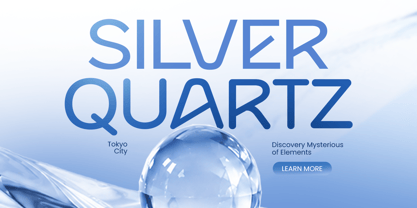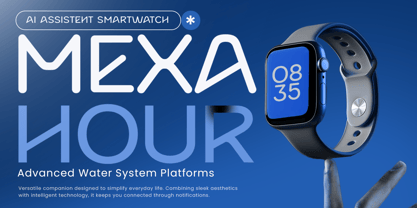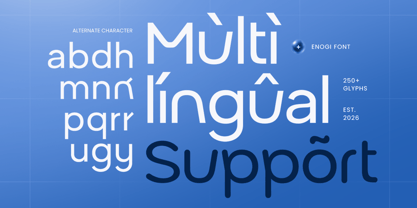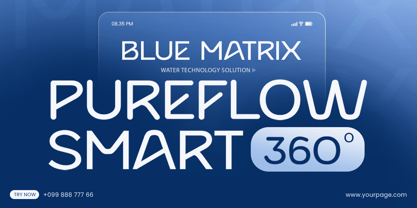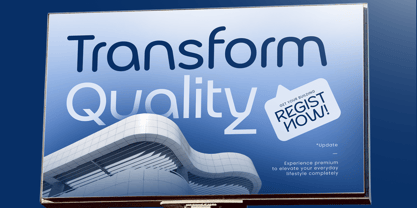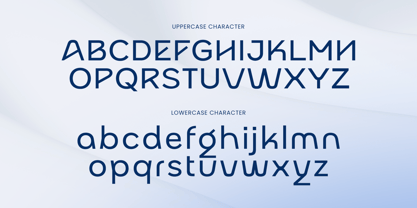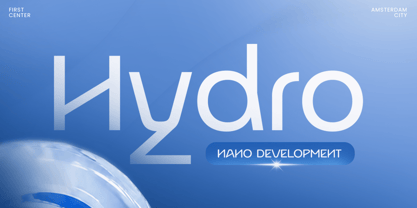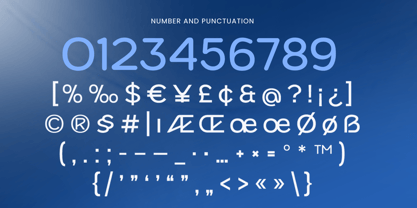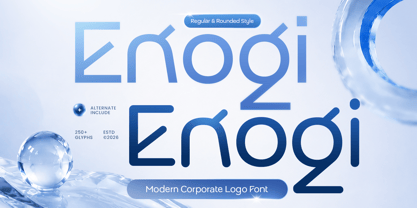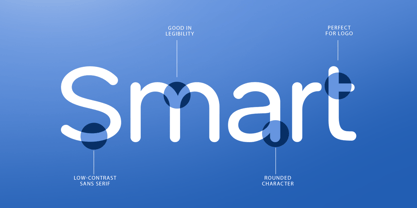
Enogi
Die Schriftfamilie Enogi wurde von Zamroni Hamzah entworfen und von Sensatype Studio veröffentlicht. Enogi enthält 2 Stile und Familienpaketoptionen. Mehr über diese Familie
ENOGI is a modern logo font crafted for brands that need a clean, stylish, and memorable visual identity. With its balanced shapes and contemporary character, ENOGI brings a professional yet creative feel to modern branding projects.
Designed for logos, brand identities, packaging, headlines, signage, social media, and digital applications, ENOGI offers a versatile style that adapts beautifully across different industries. Its refined letterforms create a strong presence while keeping the design simple and easy to recognize.
Perfect for startups, creative studios, technology brands, lifestyle products, and modern businesses, ENOGI delivers a polished appearance that helps your designs stand out. This modern logo font is built to create confident and timeless typography for both print and digital projects.
ENOGI – Modern Logo Font Features
• Clean modern letterforms with a professional appearance
• Perfect for logos, branding, packaging, and headlines
• Minimal and versatile design for various industries
• Includes uppercase, lowercase, numerals, and punctuation
• Great for digital and print design projects
• Suitable for UI design, social media, and advertising
• OpenType features for creative flexibility
Multilingual Support
Afrikaans, Albanian, Asu, Basque, Bemba, Bena, Breton, Chiga, Cornish, Dutch, English, Estonian, Filipino, Finnish, Friulian, Galician, German, Gusii, Indonesian, Irish, Italian, Kabuverdianu, Kalenjin, Kinyarwanda, Luo, Luxembourgish, Luyia, Machame, Makhuwa-Meetto, Makonde, Malagasy, Manx, Morisyen, North Ndebele, Nyankole, Oromo, Portuguese, Quechua, Romansh, Rombo, Rundi, Rwa, Samburu, Sango, Sangu, Scottish Gaelic, Sena, Shambala, Shona, Soga, Somali, Spanish, Swahili, Swedish, Swiss, and more.